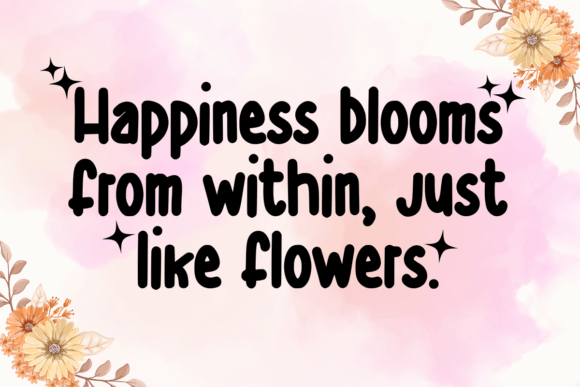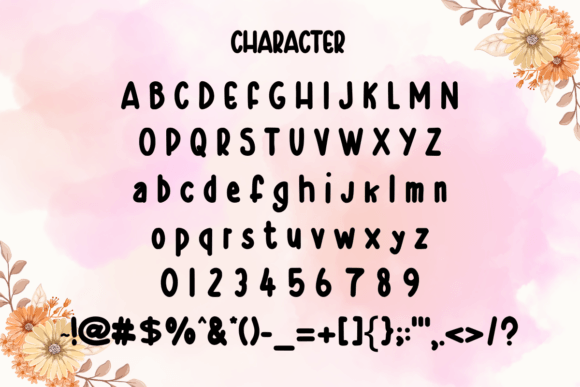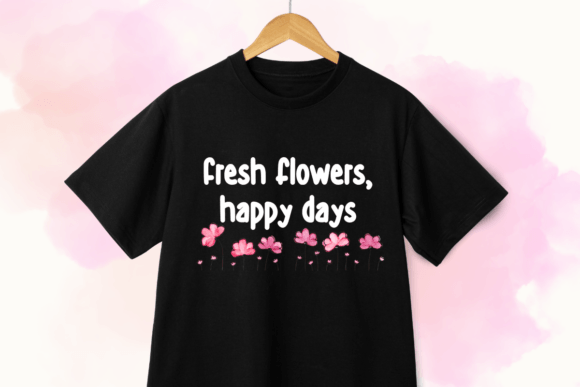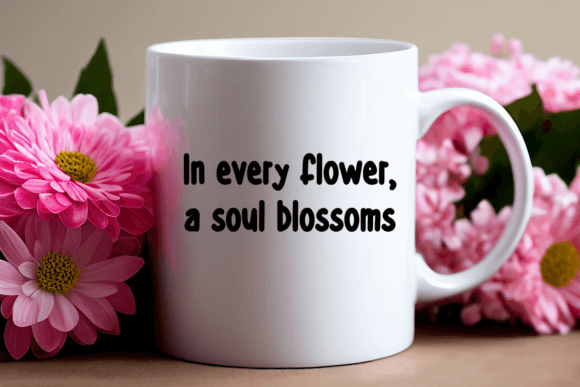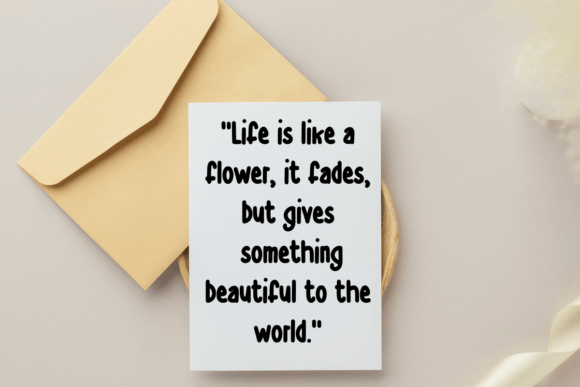
The Perfect Bloom: Discovering the Fresh Flower Font
Ah, the quest for the perfect font! It’s a design dilemma we’ve all faced at some point. I recall working on a project for a client’s birthday party invitations, determined to create something that would make the celebration unforgettable. The theme was a garden party, and I needed a font that would capture the freshness and playfulness of the occasion. That’s when I stumbled upon the Fresh Flower font, and it was love at first sight! 💐
So, what makes Fresh Flower so special? Let’s dive into the good stuff! 😊
- ✨ Fun and playful vibe: Fresh Flower is a sans serif font that exudes a carefree and cheerful personality, perfect for creative projects.
- ✅ Highly versatile: This font is suitable for a wide range of applications, from memos and journals to planners, interior KDPs, cards, invitations, and scrapbooks.
- ✅ Seasonal and thematic flexibility: Use Fresh Flower for holidays like Christmas, Halloween, Thanksgiving, or for more general themes like funky, fall, or zodiac-inspired designs.
Now, no font is perfect, and Fresh Flower has a few minor quirks to consider:
- 🤔 Limited formal applications: Due to its playful nature, Fresh Flower might not be the best fit for more formal projects or professional documents.
- ⚠️ Overuse can be overwhelming: As with any bold font, be mindful of overusing Fresh Flower, as it can quickly become overwhelming.
The Story Behind Fresh Flower
While the origins of Fresh Flower are unclear, it’s easy to imagine a designer inspired by the simple joys of nature – walking through a garden on a sunny day, surrounded by blooming flowers and buzzing bees. This font captures that carefree essence, making it perfect for creative projects that need a playful touch.
With Fresh Flower in your design toolkit, you’ll be able to add a touch of playfulness and whimsy to your projects. Don’t be afraid to experiment and make the most of this beautiful font’s features! 🌼